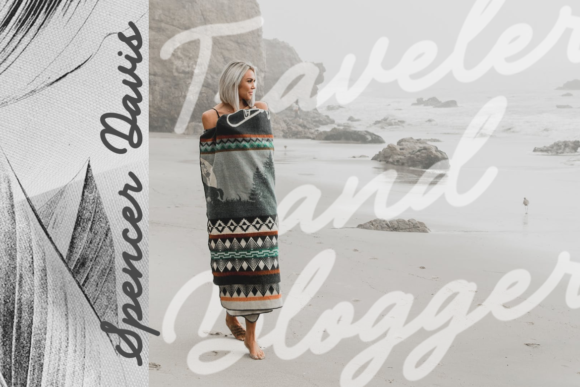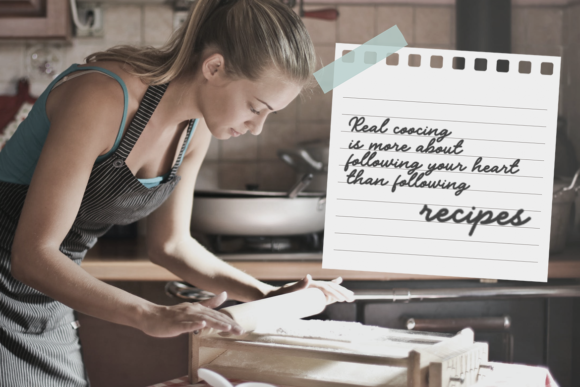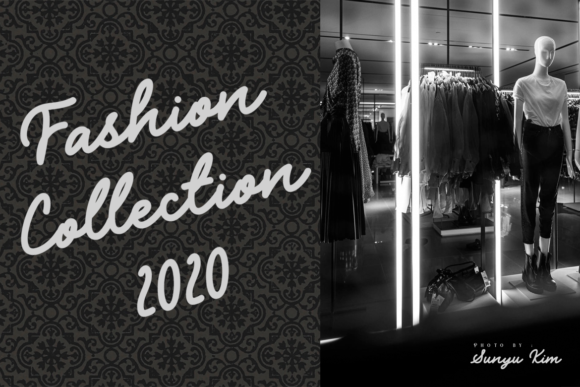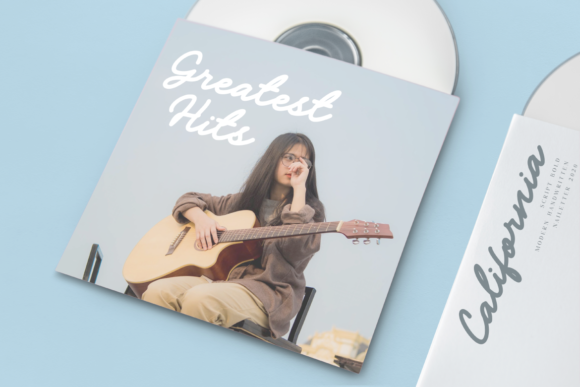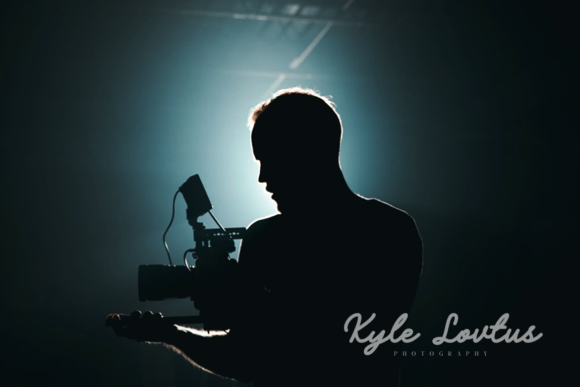
The Elegance of California Font: A Designer’s Delight
I’ll never forget the time I was working on a wedding invitation project, and my client asked for a font that exuded elegance and sophistication. I scoured the internet, tried out countless fonts, but nothing seemed quite right. That was until I stumbled upon California Font. ✨ It was love at first sight! The flowing lines, the varying baseline, and the gorgeous glyphs all came together to create a truly stunning font that perfectly captured the essence of the occasion.
- ✨ Elegant and flowing design that’s perfect for wedding invitations, thank you cards, and quotes
- ✅ Features a varying baseline, smooth lines, and gorgeous glyphs that add a touch of sophistication
- ✅ Stunning alternates that allow for creative flexibility
- ✅ Works beautifully on logos, business cards, and greeting cards
While California Font is an amazing font, there are a few things to keep in mind. 🤔 For example, it can be a bit challenging to read at smaller font sizes, so it’s best used for headlines or titles. ⚠️ Additionally, some of the more intricate glyphs may not display properly on all devices or platforms.
The Backstory of California Font
California Font was designed by a team of talented typographers who wanted to create a font that captured the essence of the Golden State. Inspired by the state’s stunning natural beauty, the font’s designers aimed to create a font that was both elegant and flowing, with a touch of sophistication. 🌴
Q: What is California Font?
A: California Font is a elegant and flowing script font that’s perfect for wedding invitations, thank you cards, quotes, and more.
Q: Is California Font easy to read?
A: California Font is designed to be elegant and flowing, but it can be a bit challenging to read at smaller font sizes. It’s best used for headlines or titles.